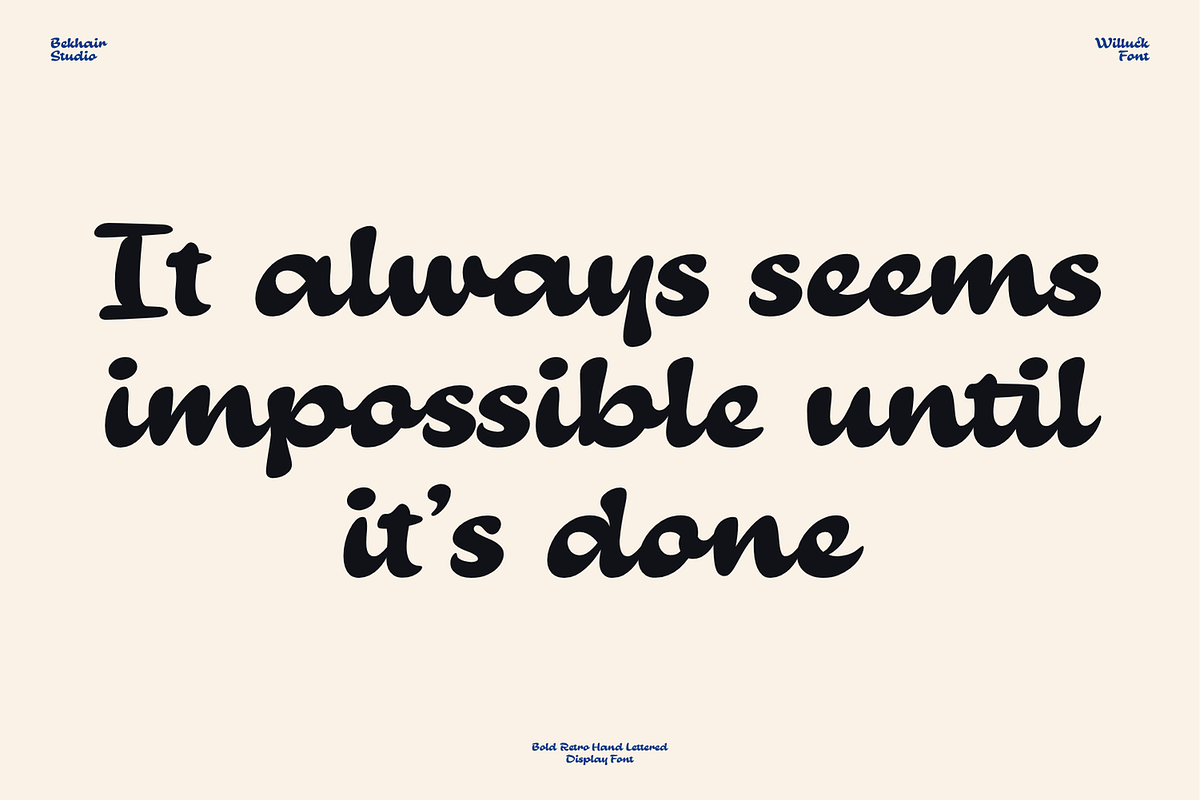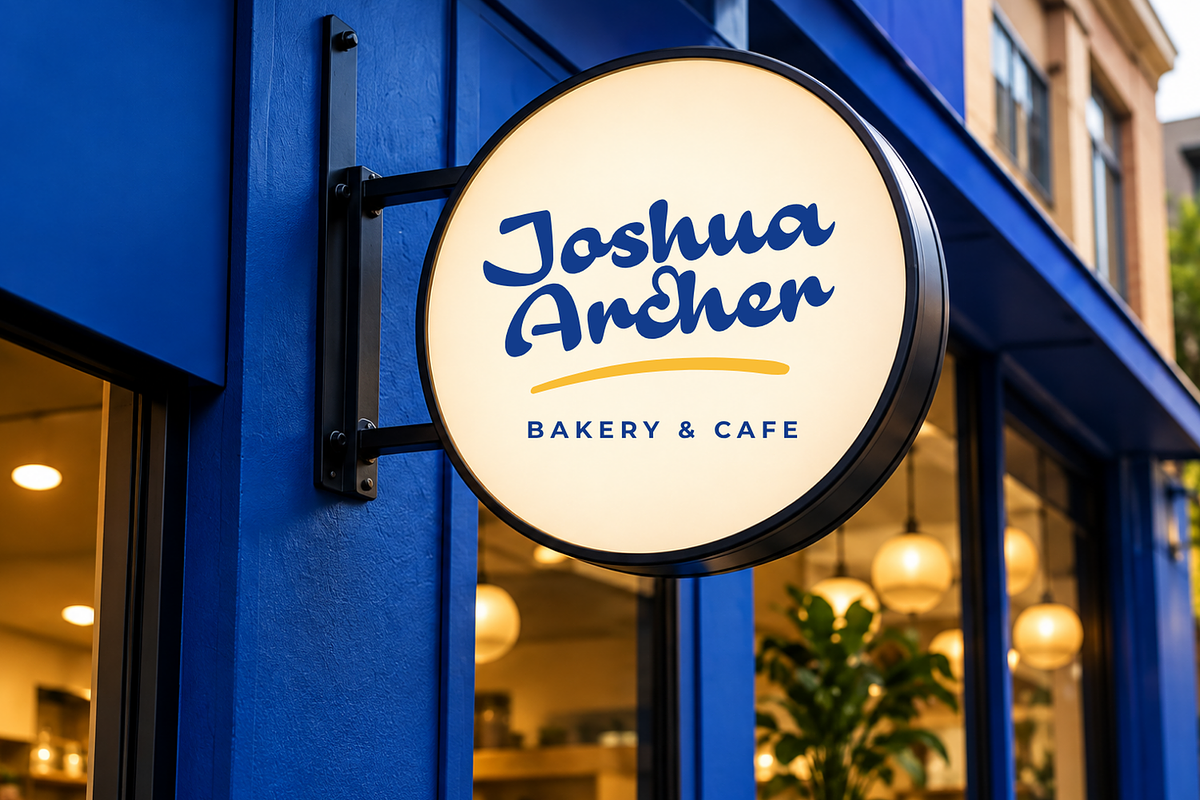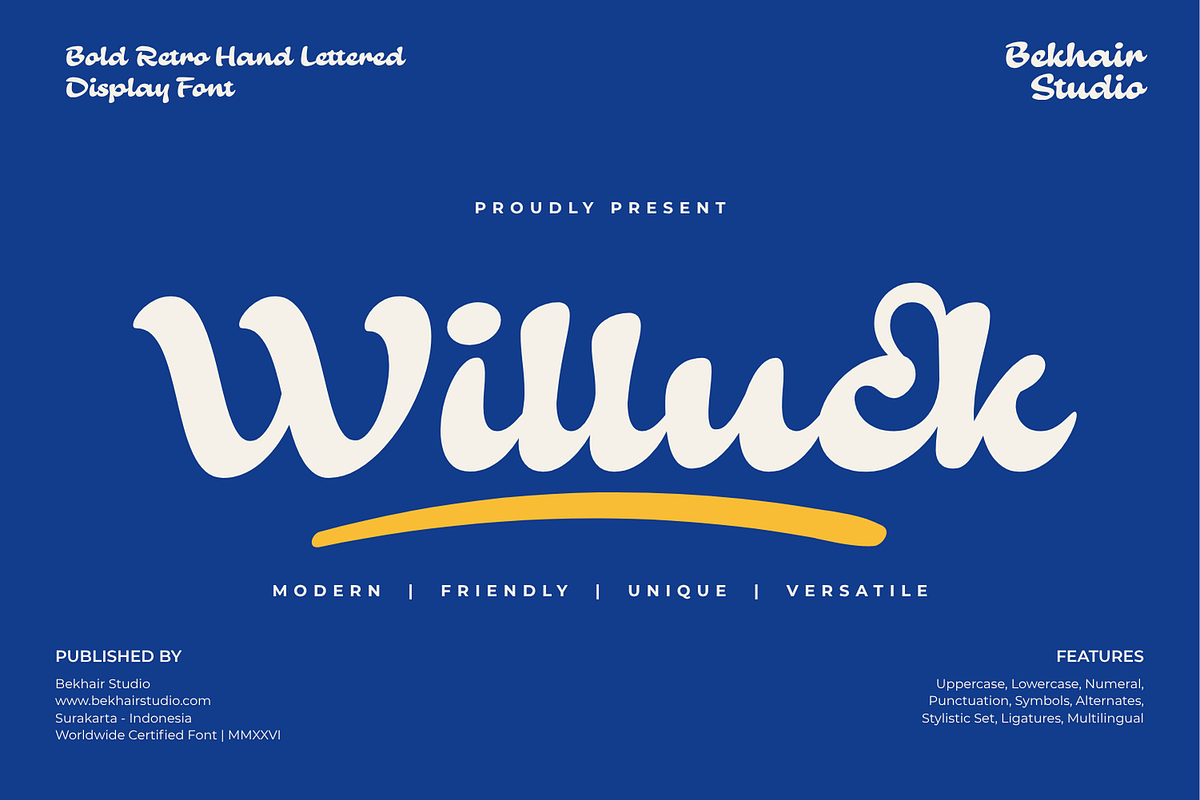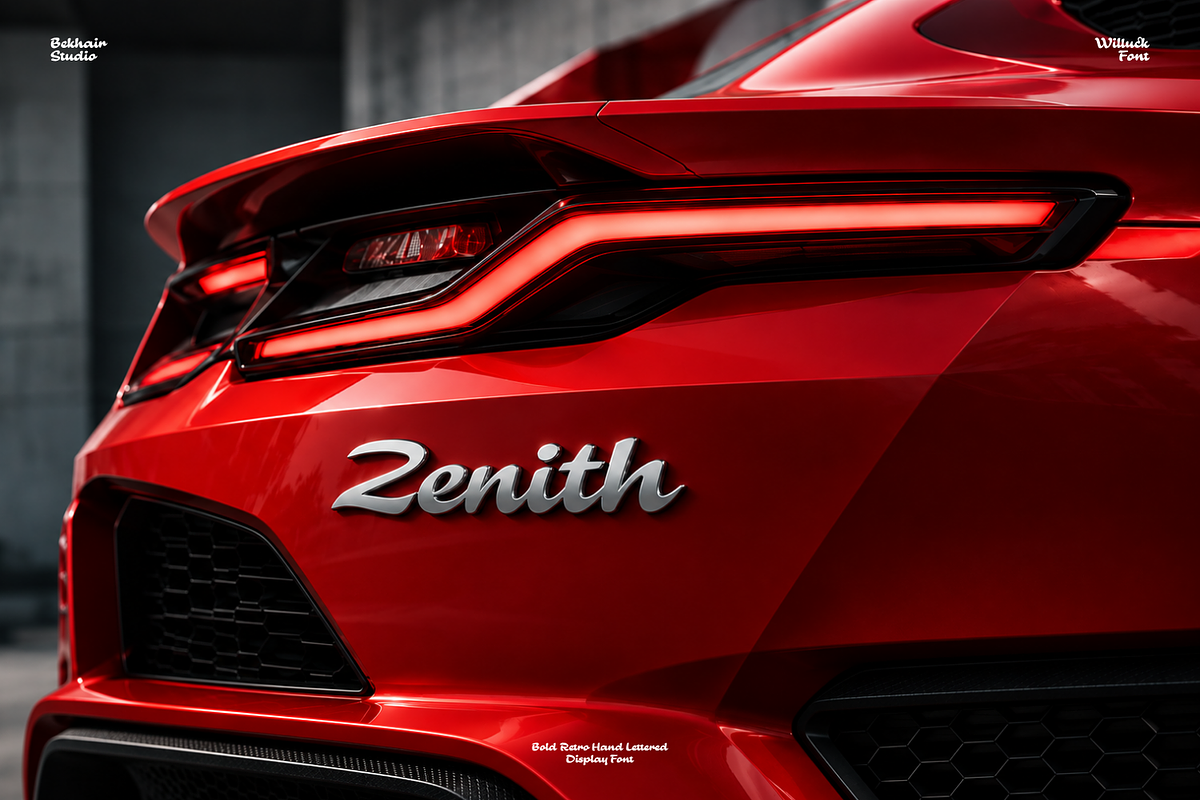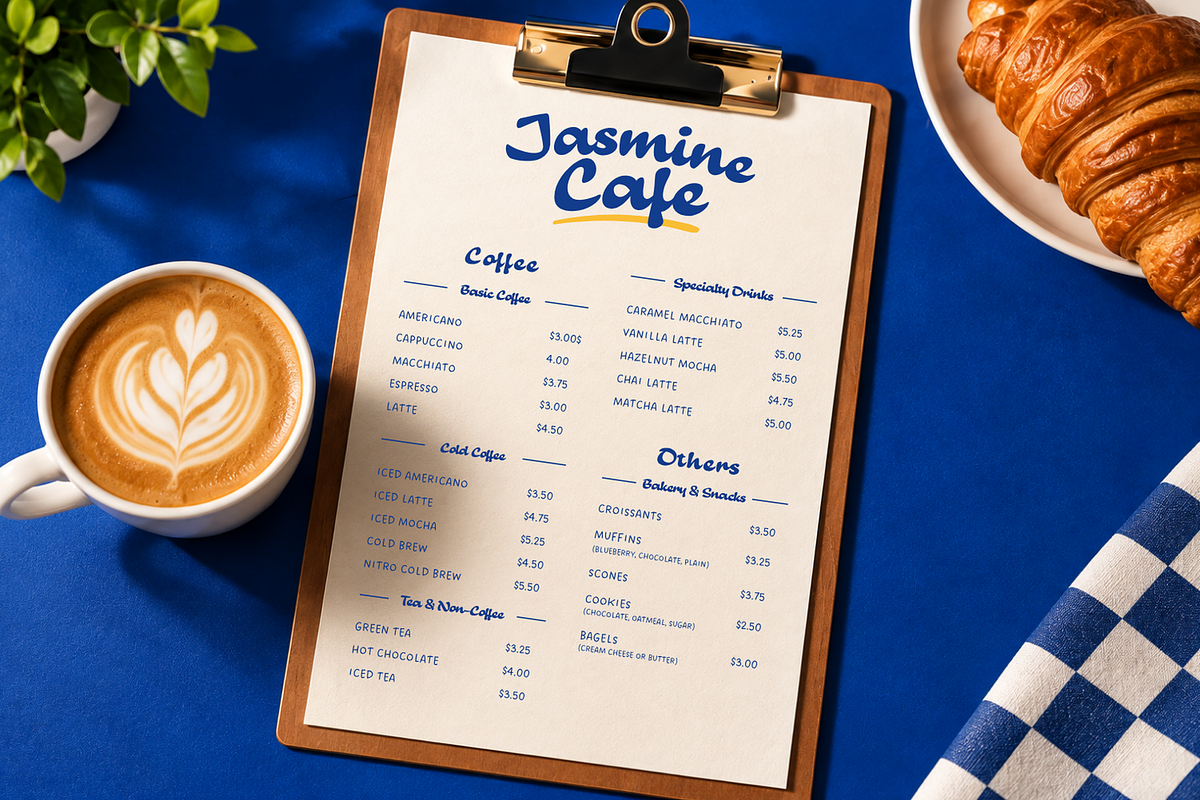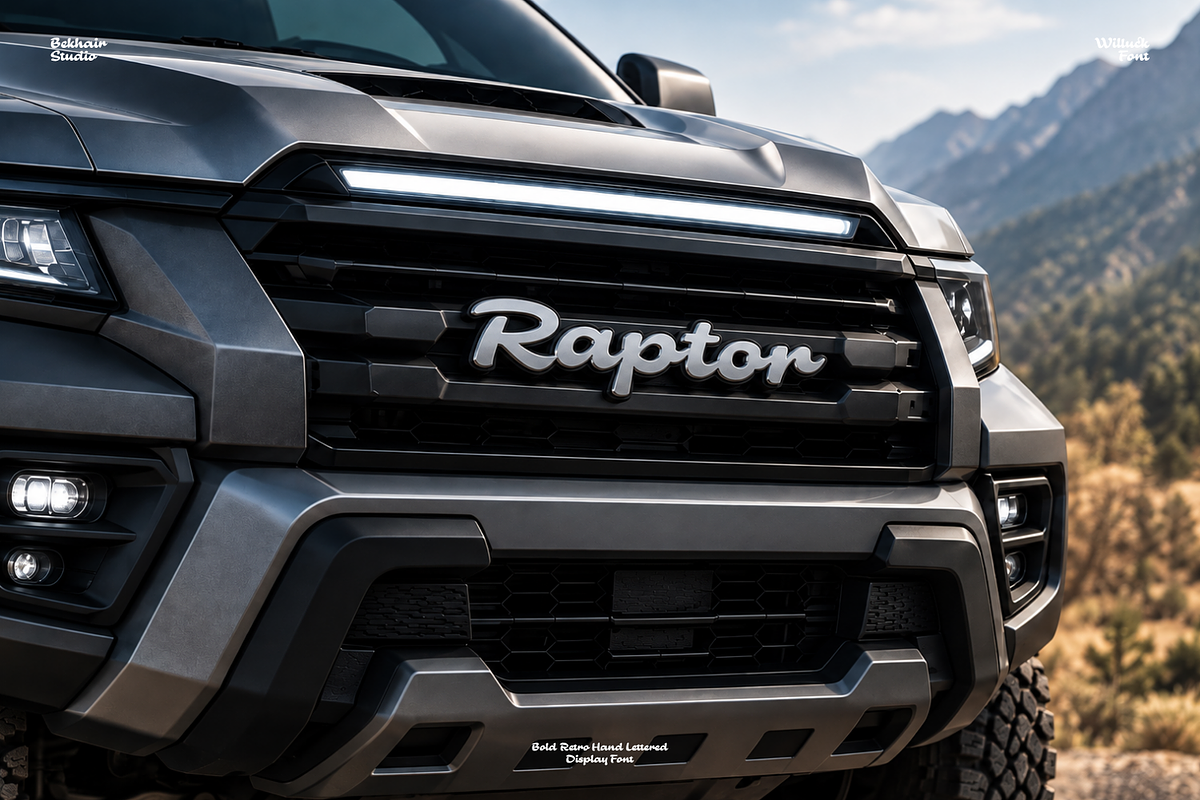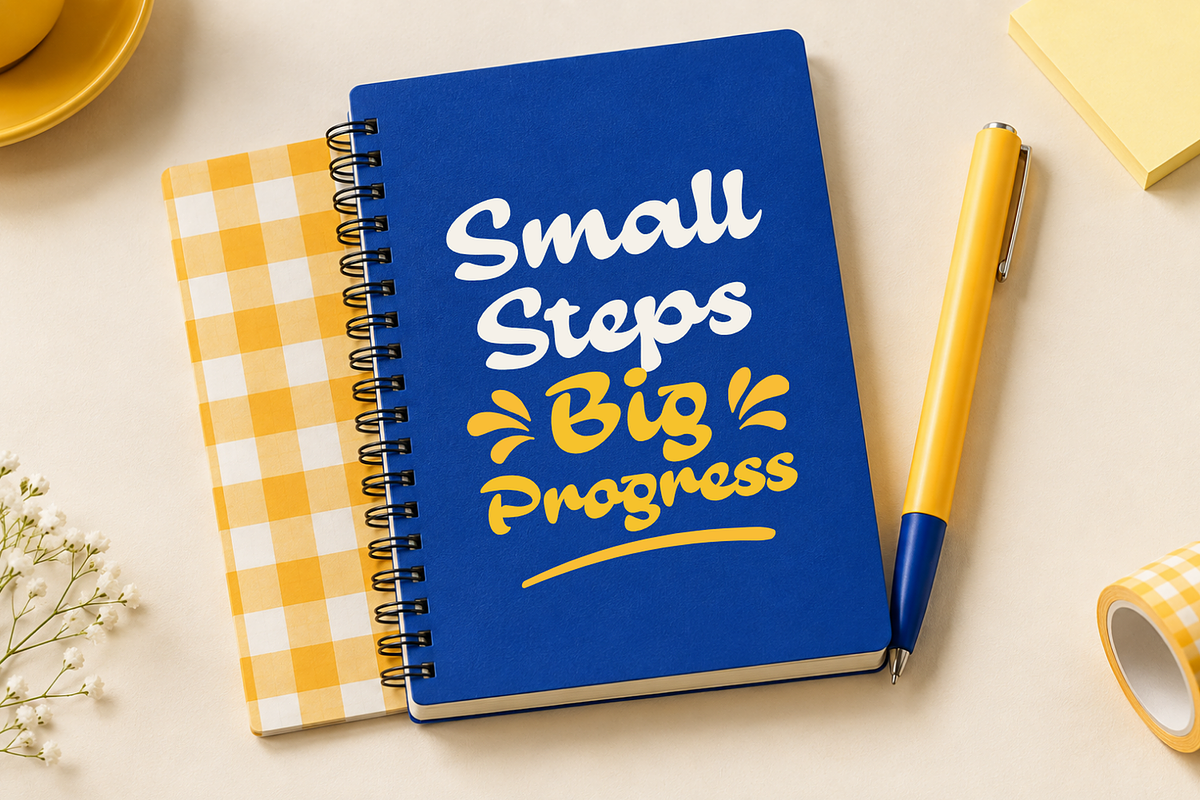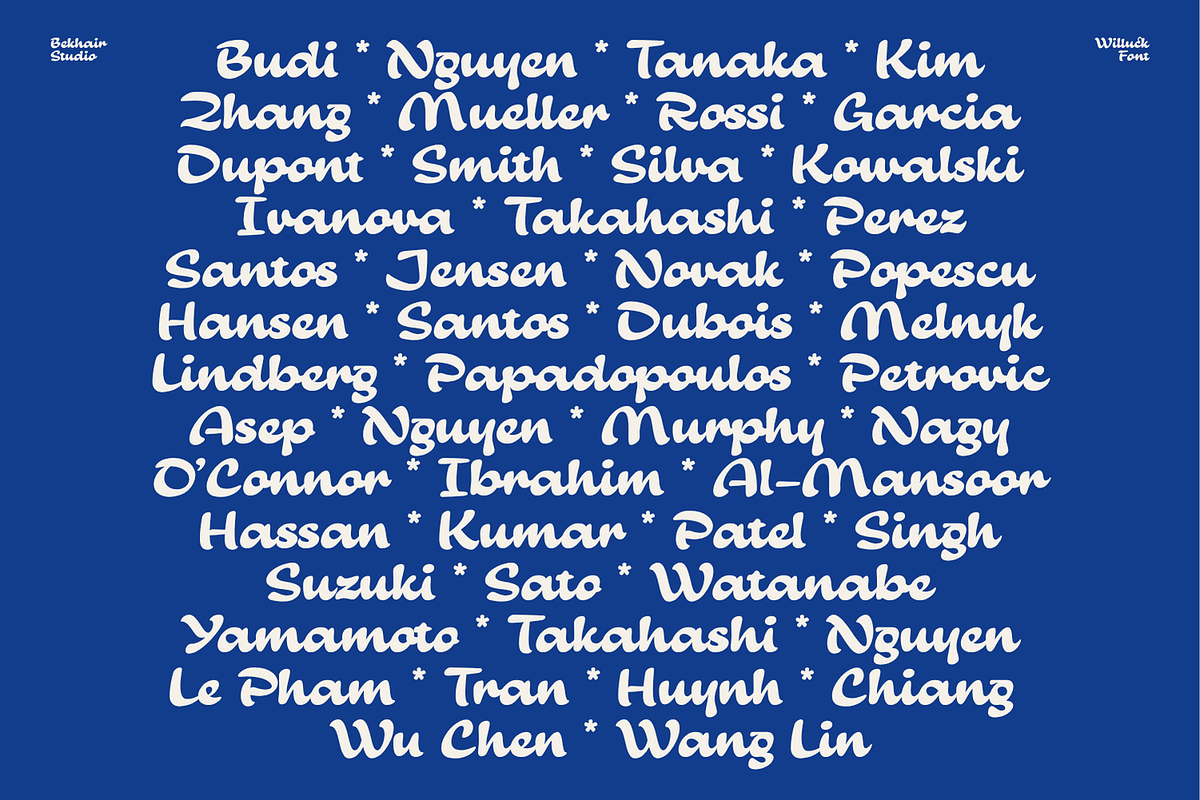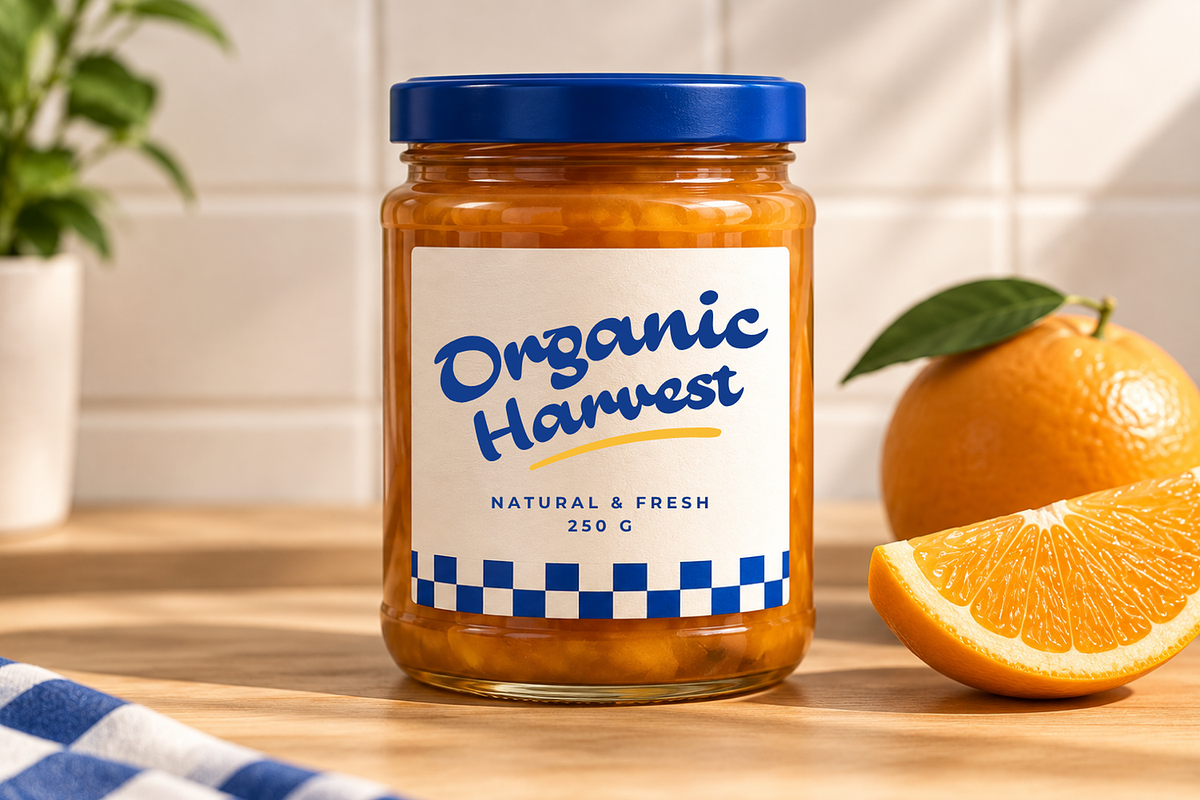
Willuck Font – Playful Retro Font
Willuck is a bold and playful handwritten display font designed to bring a fun, retro-inspired personality to creative projects. Its thick, rounded letterforms and expressive shapes create a friendly, energetic, and memorable visual style that works especially well at large sizes.
Perfect for logos, branding, packaging, posters, apparel, signage, food and beverage designs, bakery branding, coffee shop graphics, stickers, merchandise, social media artwork, and advertising, Willuck helps make headlines and brand names stand out.
Use Willuck as a strong display typeface for main titles, product names, short phrases, and promotional messages. For longer supporting text, pairing it with a clean sans-serif font can create a balanced and professional design.
Its distinctive handwritten character makes it especially suitable for retro, playful, lifestyle, food, fashion, and creative brands looking for a bold and approachable visual identity.